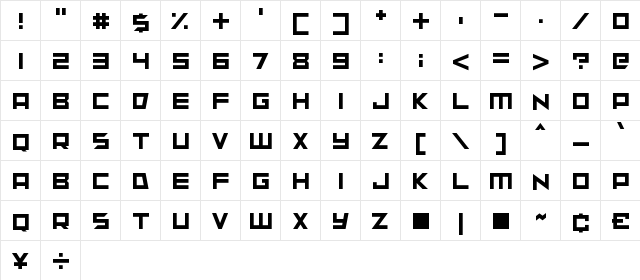
sunspire Regular
| Designer | Darrell Flood |
Design Context for sunspire Typeface
sunspire is a composed and adaptable typeface that performs quietly and consistently across a wide range of design contexts.